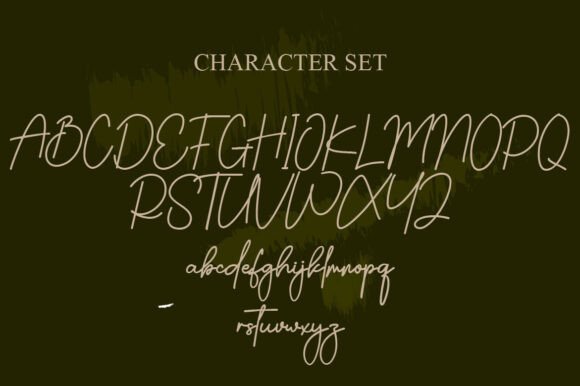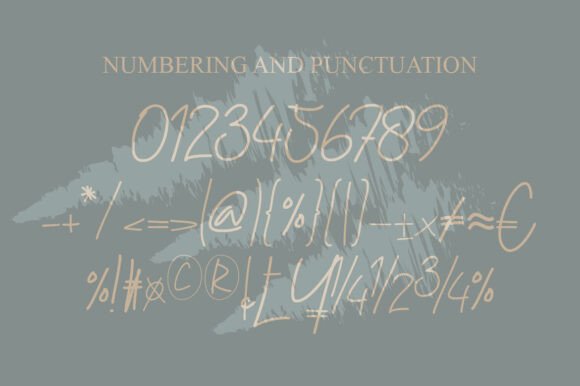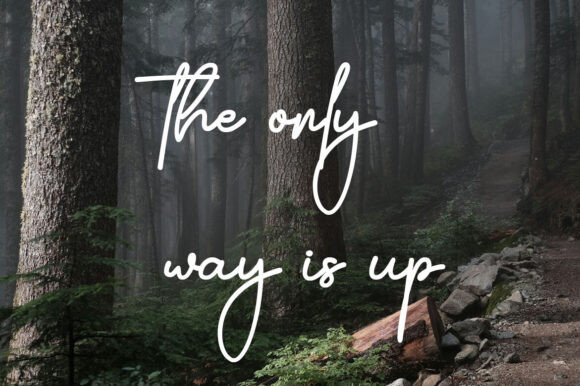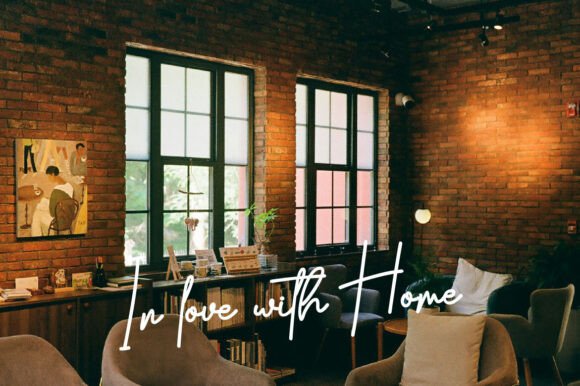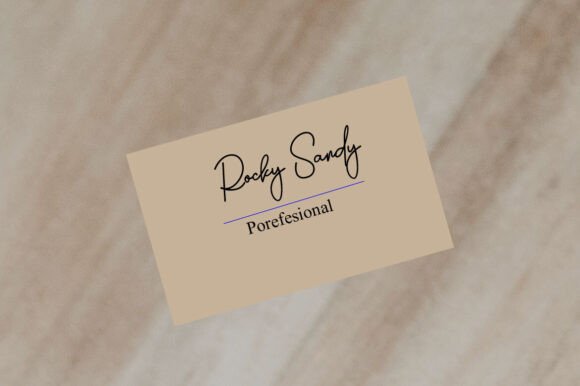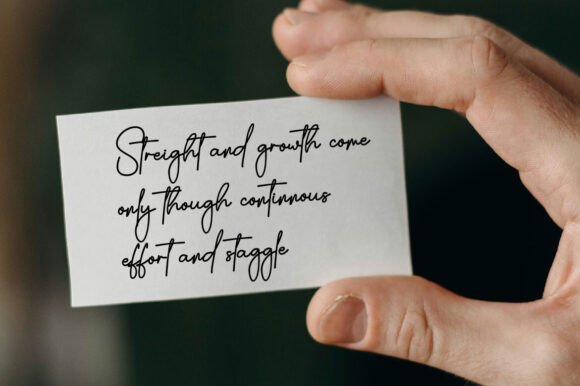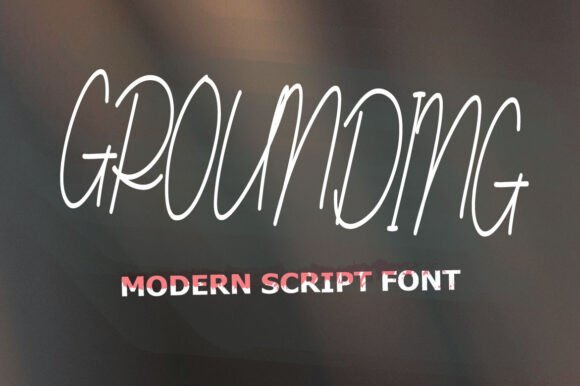
Discover the Enchantment of Grounding Script Font
In the world of typography, few fonts manage to strike a balance between elegance and personality. However, Grounding script font achieves just that, offering a masterfully designed monoline typography that is both sophisticated and charming. With its distinct flowing handwritten appearance, Grounding font is perfect for designers and crafters looking to add a touch of warmth and style to their creations.
The Characteristics of Grounding Font
Grounding font is characterized by its sleek, uniform lines, which give it an undeniable charm. The font’s monoline design ensures that each line is of equal thickness, creating a sense of harmony and balance. The fluid letter junctions allow text to seamlessly weave together, revealing an authentic, uninterrupted flow. This feature makes Grounding font ideal for both corporate and casual design endeavors, as it can adapt to various design styles and themes.
Uses of Grounding Font
Grounding font is a versatile typography that can be used in a variety of design projects. Here are a few examples:
• Exclusive Invitations: Add a touch of elegance to your invitations with Grounding font. Its sophisticated design makes it perfect for formal events, weddings, and parties.
• Brand Aesthetics: Use Grounding font to create a consistent brand image. Its unique design will help your brand stand out and leave a lasting impression on your customers.
• Social Media Graphics: Grounding font is perfect for creating captivating social media graphics. Its flowing handwritten appearance will add a touch of personality to your posts and stories.
Features of Grounding Font
Grounding font comes with a range of features that make it a valuable asset for designers and crafters. Here are a few:
• Punctuation and Numeration: The font includes punctuation and numeration, ensuring that you have everything you need to create professional-looking designs.
• Stylish Alternative Options: Grounding font offers stylish alternative options, allowing you to experiment with different designs and styles.
• Multi-Lingual Support: The font supports multiple languages, making it a great choice for designers who work with clients from around the world.
Why Choose Grounding Font?
With so many fonts available, why choose Grounding font? Here are a few reasons:
• Unique Design: Grounding font has a unique design that will set your designs apart from the rest.
• Versatility: The font is versatile and can be used in a variety of design projects.
• Elegance and Personality: Grounding font strikes a balance between elegance and personality, making it perfect for designers who want to create sophisticated and charming designs.
Grounding script font is a masterfully designed monoline typography that is perfect for designers and crafters looking to add a touch of elegance and personality to their creations. With its unique design, versatility, and range of features, Grounding font is an excellent choice for anyone looking to create sophisticated and charming designs. Whether you’re working on exclusive invitations, brand aesthetics, or social media graphics, Grounding font is the perfect companion to help you bring your design vision to life.